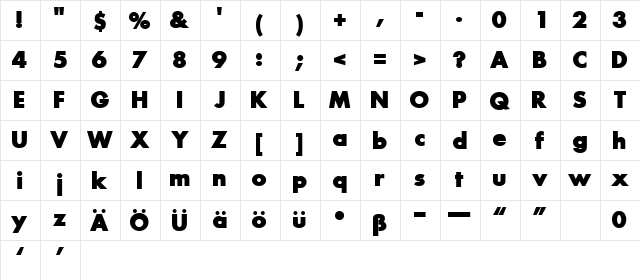
Design Context for FuturaExtraBold.fog Typeface
FuturaExtraBold.fog has a distinctly futuristic character, with geometric precision and clean angles that feel at home in technology, gaming, and sci-fi contexts. Its bold stroke weight gives it real presence on the page.
Pro Tip: Use FuturaExtraBold.fog in combination with a neutral sans for body text. Let it define the brand voice in headlines while keeping reading comfortable elsewhere.